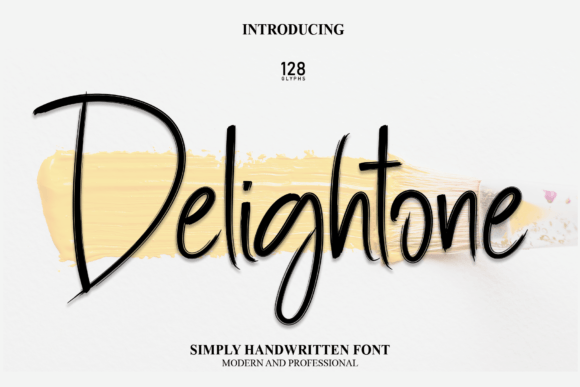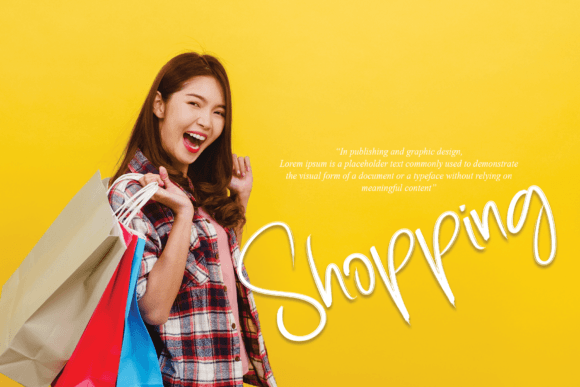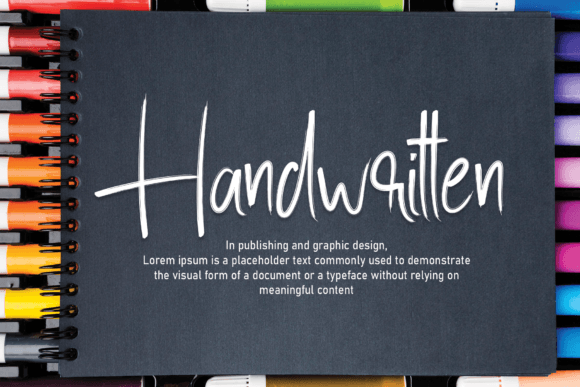
About Delightone Handwritten Font
Delightone Handwritten Font is an elegant and versatile script typeface created to add charm and personality to any design. With smooth curves and carefully crafted proportions, it embodies the grace of handwritten calligraphy while maintaining a modern, stylish vibe. Because of its adaptability, Delightone Handwritten Font is perfect for invitations, posters, product packaging, logos, labels, photography, and social media graphics.
A Handwritten Typeface with Elegance
Handwritten fonts often carry warmth and individuality, and Delightone Handwritten Font captures this essence beautifully. Its strokes are refined—neither too thin nor too thick—creating a natural rhythm and flow. In addition, the spotless form ensures high readability, making it suitable for both professional branding and personal projects.
Special occasions require fonts that feel authentic, and Delightone HandwrittenFont delivers that perfectly. For example, it elevates wedding invitations, thank-you notes, and menus with style and elegance. Moreover, it enhances greeting cards, seasonal stationery, and birthday designs, giving them a sophisticated and heartfelt touch.
A Script Typeface for Branding and Packaging
Businesses and creatives can use Delightone HandwrittenFont to strengthen their brand identity. It shines on boutique logos, product labels, and promotional campaigns. Furthermore, it adapts seamlessly to magazine covers, advertising materials, and digital marketing. When paired with clean sans serif fonts, it produces a polished, professional look that appeals to modern audiences.
Flexible Across Print and Digital Media
Another advantage of Delightone HandwrittenFont is its adaptability across mediums. In print, it works beautifully on posters, brochures, and merchandise. Digitally, it integrates smoothly into websites, blogs, and online stores. Since it scales clearly from small details to large banners, it maintains clarity and consistency in every design.